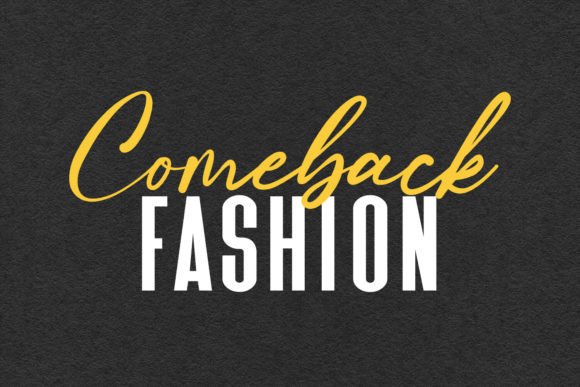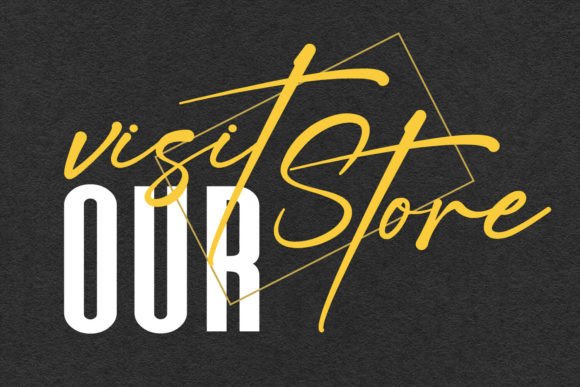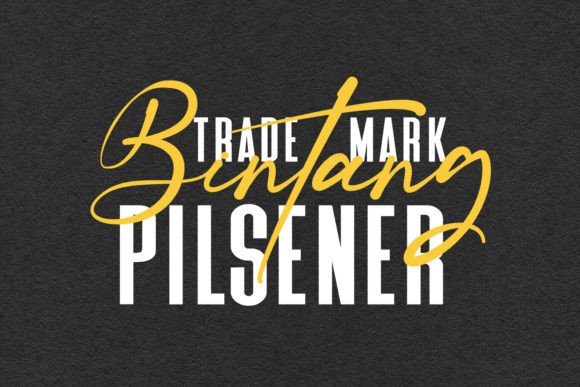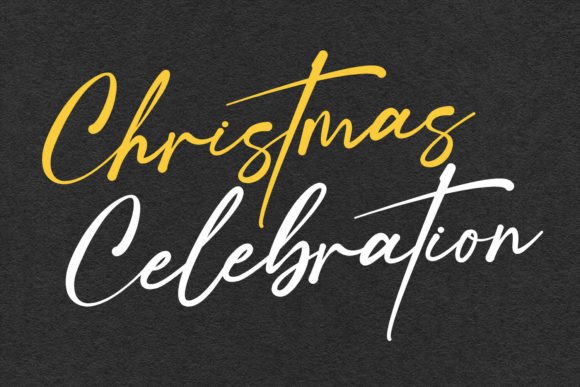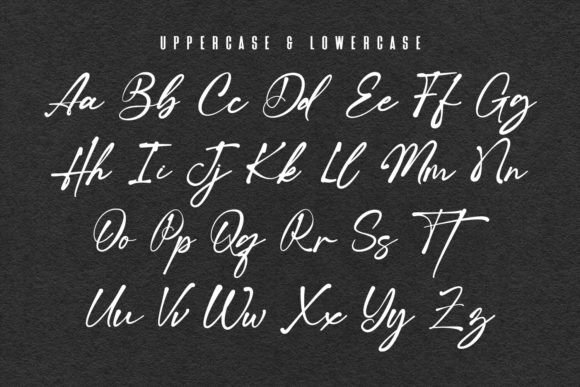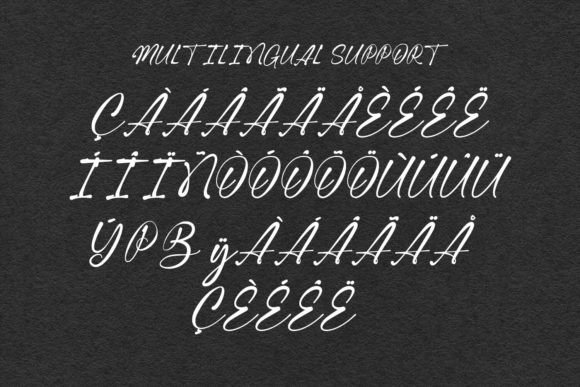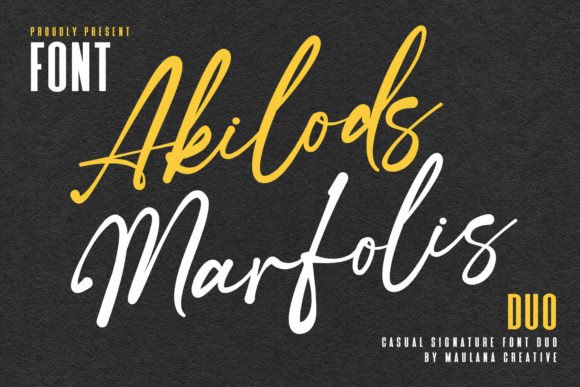
The Hunt for the Perfect Font: How Akilods Marfolis Stole My Heart
I still remember the frustration of working on a design project, pouring my heart and soul into every detail, only to be held back by one thing: the font. My client wanted something that would give their brand an authentic, handcrafted feel, but I was struggling to find the right one. That was until I stumbled upon Akilods Marfolis, a game-changing brush-handcrafted font that has since become a staple in my design toolkit.
An Honest Review: What I Love (and What to Watch Out For)
So, what makes Akilods Marfolis so special? Here are a few things that I absolutely love:
- ✨ Authentic brush-handcrafted feel: Akilods Marfolis has a unique, organic look that adds a touch of warmth and personality to any design.
- ✅ Ligatures and alternates: The font comes with a range of ligatures and alternate characters, giving you plenty of options for customizing your text.
- 🎁 Free sans serif included: The bundle also includes a clean, sans serif font that’s perfect for pairing with the main Marfolis font.
- 🤔 Glyphs can be a bit tricky to access: If you’re new to using OpenType features, it might take some time to get the hang of accessing the glyphs and stylistic alternates.
- ⚠️ Not ideal for body text: Akilods Marfolis is best used for headlines, titles, and short paragraphs – it’s not the most readable font for longer blocks of text.
The Story Behind Akilods Marfolis
Akilods Marfolis was created by a talented designer who wanted to capture the beauty of handcrafted typography. With its unique blend of organic and elegant features, it’s no wonder that this font has become a favorite among designers and crafters.
| Is Akilods Marfolis suitable for body text? | No, Akilods Marfolis is best used for headlines, titles, and short paragraphs. It’s not the most readable font for longer blocks of text. |